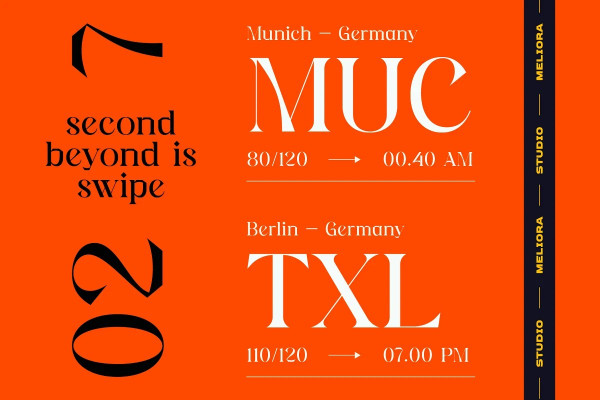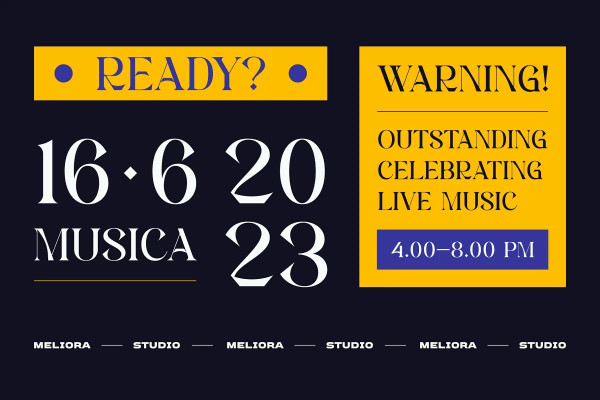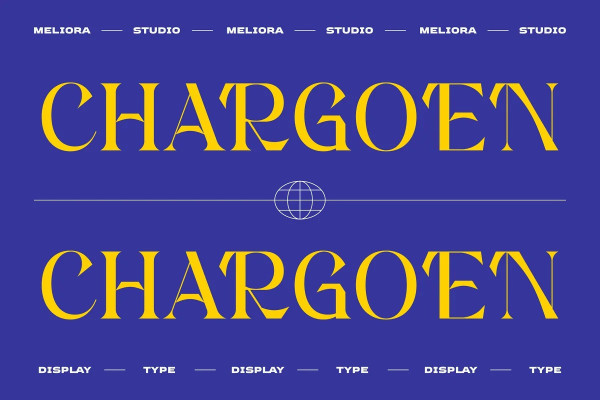
Chargoen Font
Chargoen Font is a distinct and elegant display serif font. Its stylish alternates and ligatures make this font the perfect match for any project.